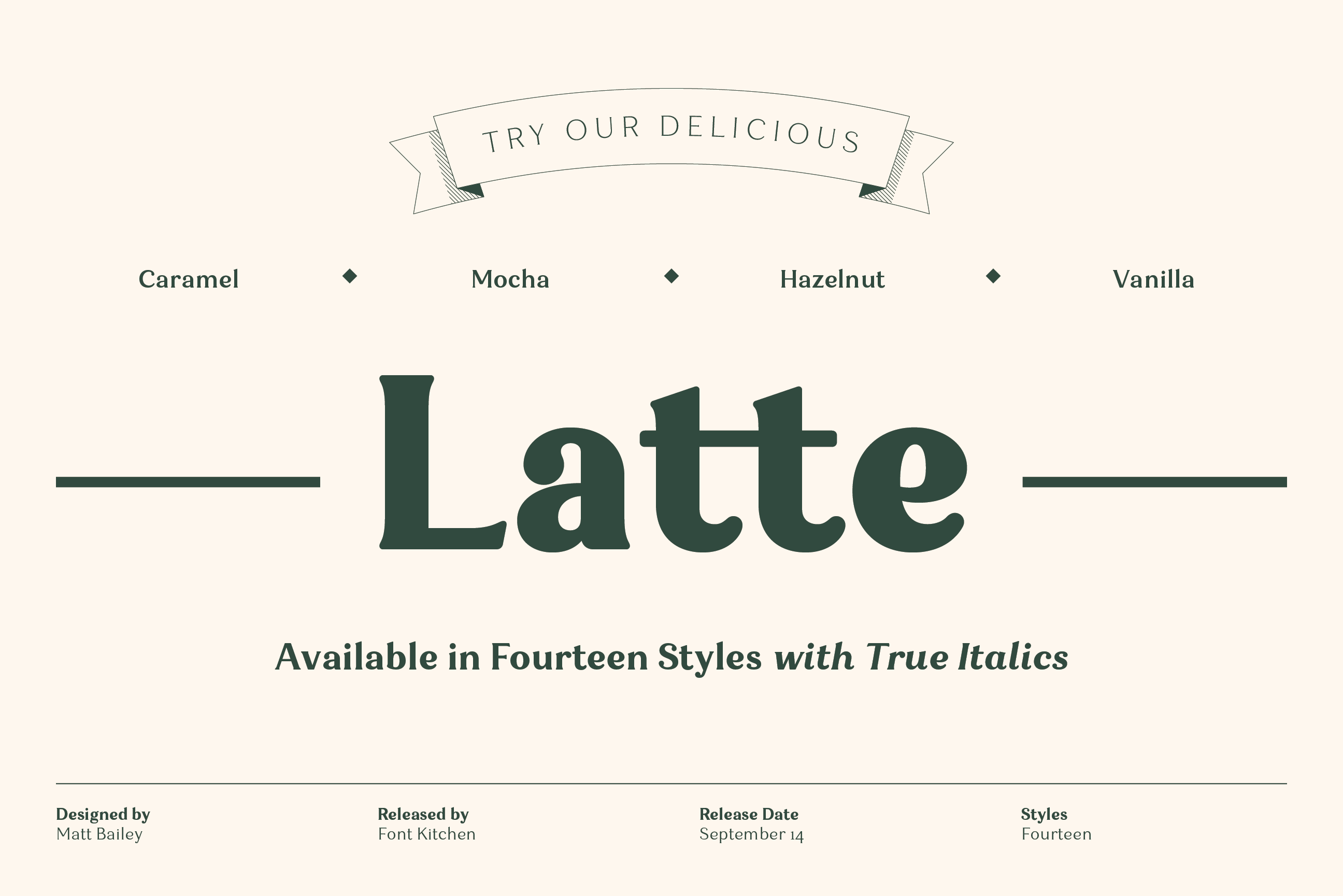
Latte - Friendly Serif Font
Cozy up with a warm cup of Latte! This friendly typeface uses the highest quality hand-roasted glyphs blended with some wonderful rounded serifs and ball terminals to create a bold, earthy flavor that can't be beat. Available in 14 robust styles, including true italics, Latte is a great way to give your next project a warm, friendly, and natural feel. You’ll pick up on subtle notes of OpenType features like stylistic alternates (on 41/52 Latin characters+diacritics), fractions, ligatures, oldstyle and lining figures, and more. Latte is the perfect ingredient to bring a kind, peaceful feeling to your next project.